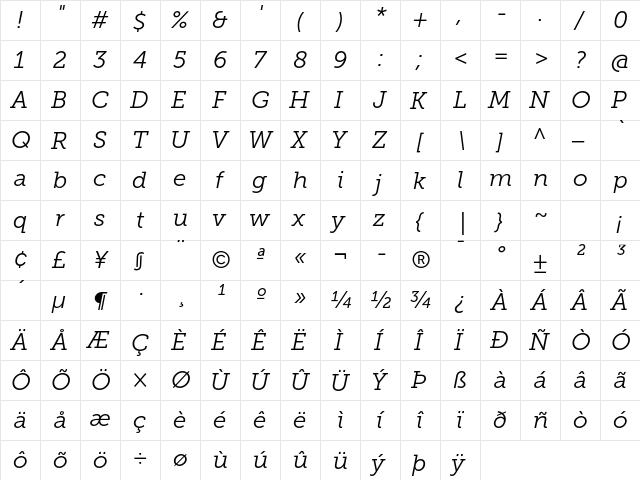
Museo Slab 300 Italic
| Foundry | Jos Buivenga |
| Designer | Jos Buivenga |
Design Context for Museo Slab Typeface
Museo Slab features prominent, blocky serifs that give it a confident, grounded presence — equally at home in editorial settings and bold branding work. The slanted form adds forward momentum and visual energy.
Works well in editorial design, news publishing, impactful branding, and poster typography.
Pro Tip: Try Museo Slab set tight in headlines for a classic editorial feel. Its slab serifs create strong horizontal rhythm that anchors a page layout.